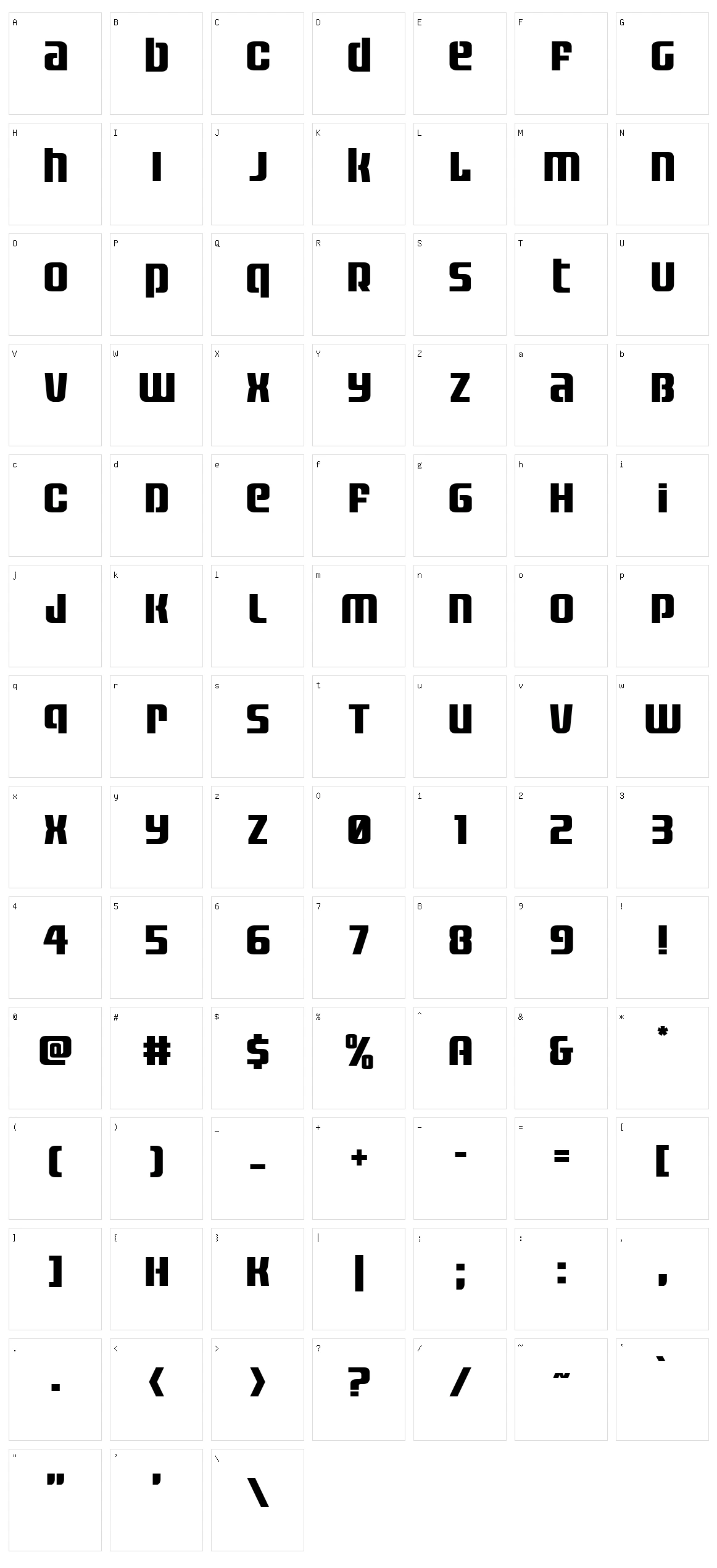
Vanguardian
Vanguardian Font
This font comes with the following 28 versions: Regular, Italic, Semi-Italic, Super-Italic, Ultra-Italic, Leftalic, Semi-Leftalic, Super-Leftalic, Compact, Compact Italic, Spaced, Spaced Italic, Condensed, Condensed Italic, Expanded, Expanded Italic, Outline, Outline Italic, 3D, 3D Italic, Gradient, Gradient Italic, Halftone, Halftone Italic, Laser, Laser Italic, Title and Title Italic.